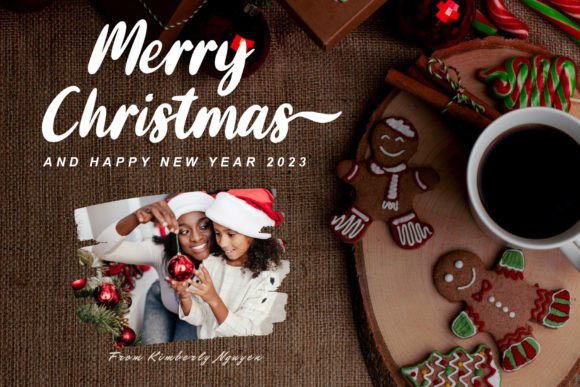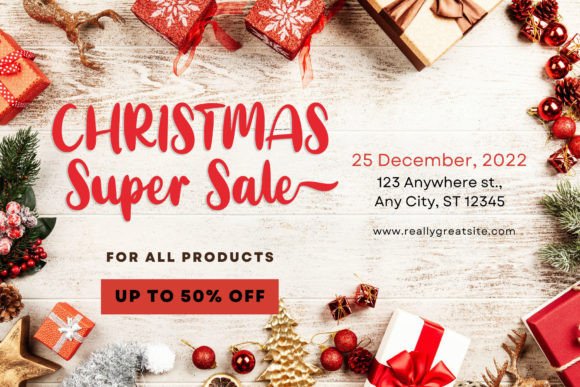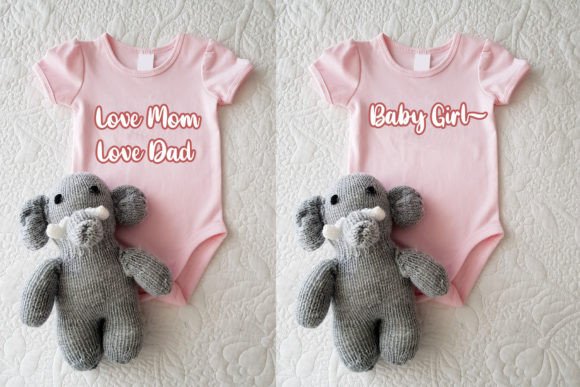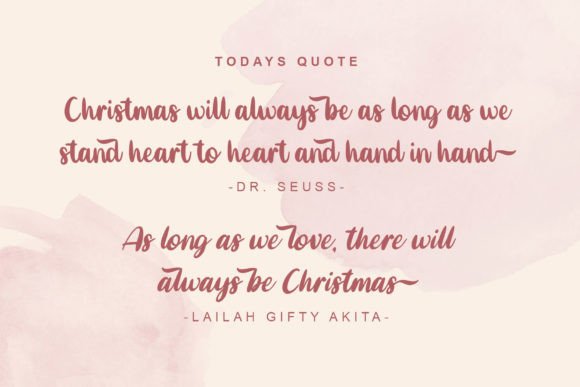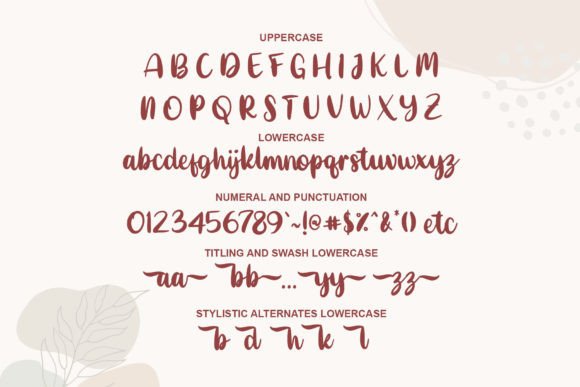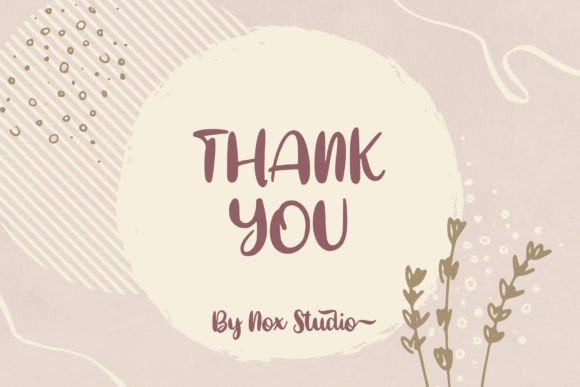
Deck the Halls with Holiday Cheer
As the snowflakes gently fall and the fireplace crackles to life, there’s nothing quite like the magic of the holiday season. For designers, it’s the perfect time to get creative and infuse their projects with a dash of festive flair. And what better way to do that than with the perfect font?
Enter Christmas Rainy Font, a stunning handwritten font that captures the essence of the holiday season. With its elegant, cursive script and whimsical touches, this font is the perfect choice for adding a touch of sophistication and whimsy to your Christmas projects. Whether you’re designing greeting cards, social media posts, or even a holiday website, Christmas Rainy Font is sure to bring a smile to your face and a twinkle to your design.
Christmas Rainy Font Key Features
- Font Family: A unique, custom-designed font specifically for Christmas and winter themes.
- Size: The font comes in a single size, but it’s highly scalable, making it suitable for various design projects, from posters to business cards.
- Resolution: The font is optimized for high-resolution displays, ensuring crisp and clear text rendering on modern devices and printing materials.
- Unique Characteristics: The font features intricate, hand-drawn elements and ornaments, making it perfect for creating festive and cozy designs.
- Character Set: The font includes a wide range of characters, including uppercase and lowercase letters, numbers, punctuation marks, and special characters.
Designer Review: Christmas Rainy Font
I recently had the chance to work with the Christmas Rainy Font, and I’m excited to share my thoughts on this festive font.
- The font’s cursive script is a great addition to any Christmas-themed design. It adds a touch of whimsy and playfulness.
- The font is highly customizable, allowing designers to adjust the color, size, and spacing to fit their specific needs.
- The font’s characters are well-designed and do not appear too pixelated or blurry, even at larger sizes.
- The font’s design may be too cursive for some designers’ tastes, and may not be suitable for all types of Christmas-themed designs.
Overall, I think the Christmas Rainy Font is a fun and creative option for designers looking to add a festive touch to their projects. While it may have some limitations, its unique design and high customizability make it a great choice for the right project.
To get the most out of the Christmas Rainy Font, use it in conjunction with festive graphics and colors. This font is perfect for creating a cozy and inviting atmosphere for Christmas-themed projects.
The Christmas Rainy Font is commonly used for:
– Christmas card designs
– Holiday social media graphics
– Winter-themed invitations
– Christmas party decorations
Q: Are there any specific font sizes or styles that are recommended for optimal display of the Christmas Rainy Font?
For best results, we recommend using the Christmas Rainy Font at sizes between 12pt and 24pt. Avoid using the font at extremely small or large sizes, as this may affect its legibility. Additionally, we suggest using the font in bold or italic styles to add emphasis and visual interest to your designs.